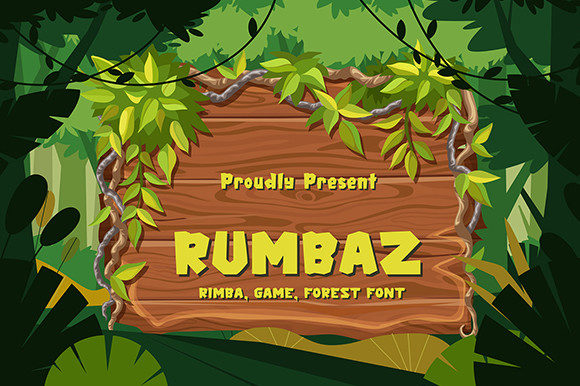
Unleash your creativity with the bold and enchanting Rumbaz font, the perfect choice for captivating designs that leave a lasting impression.
Indulge in the beauty of its chunky, hand-drawn letters, meticulously crafted to evoke a playful and whimsical charm. Rumbaz is the font equivalent of a warm embrace, instantly adding a touch of joy and lightheartedness to any project.
Whether you seek to create eye-catching bar signs that demand attention or delightful children's games that spark imagination, Rumbaz is your font soulmate. Its playful nature lends itself seamlessly to cartoon-inspired designs, bringing a touch of whimsy to your creations.
Step into a world of endless possibilities with Rumbaz. Let its bold strokes and cheerful curves ignite your inspiration and guide you towards captivating designs that resonate with your audience. Embrace the power of typography and let Rumbaz elevate your creations to new heights of engagement and enchantment.